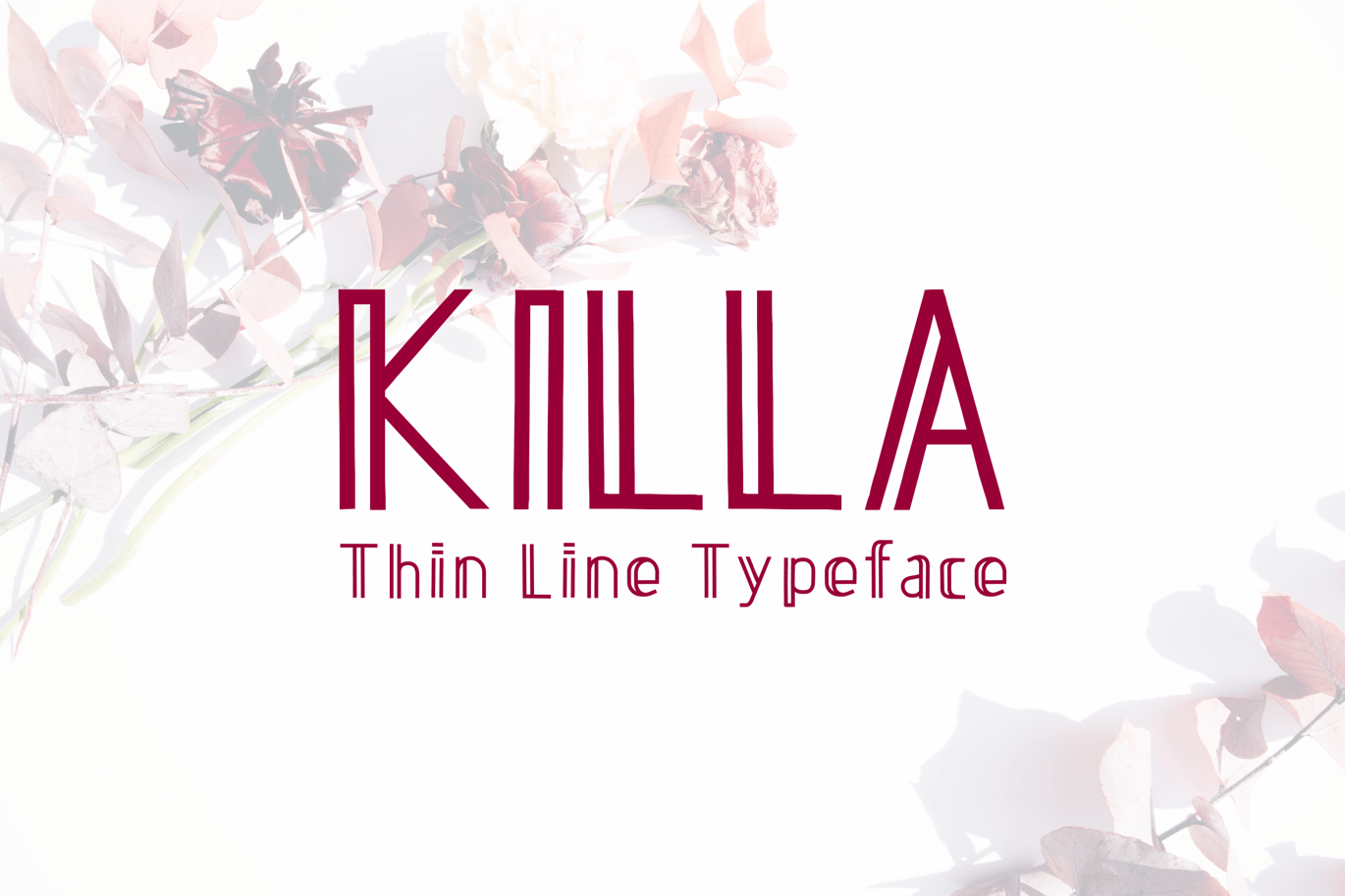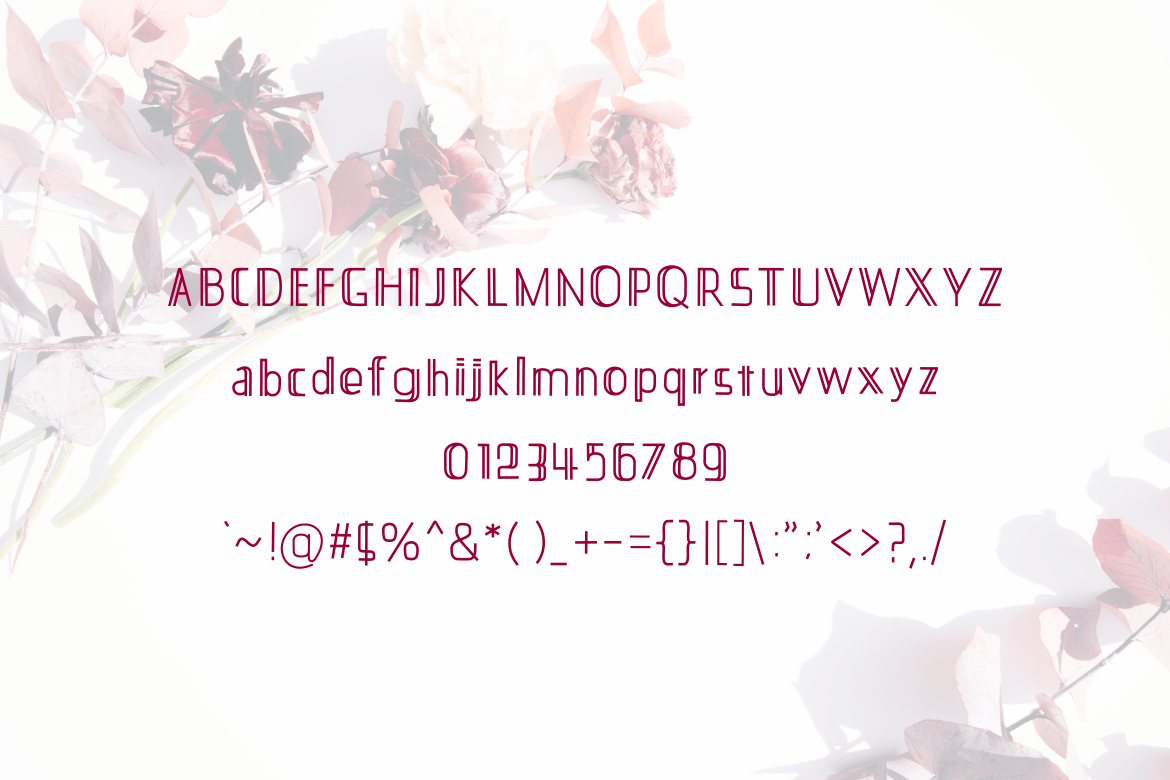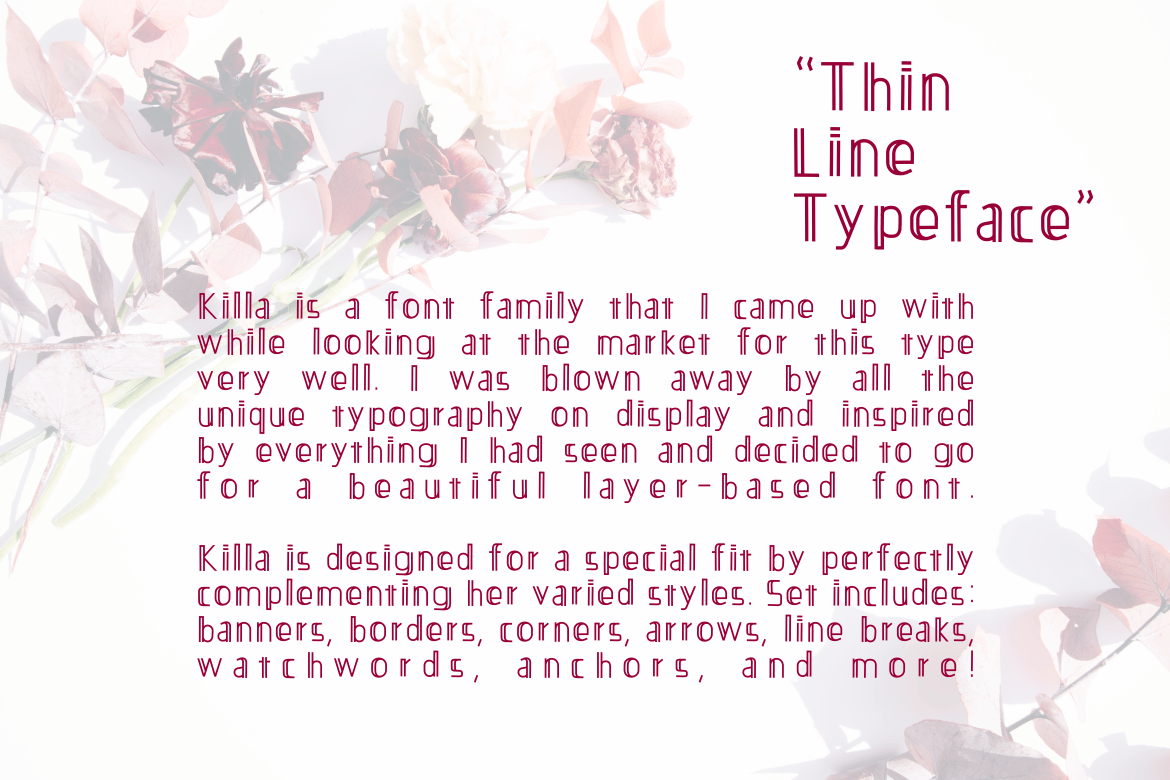
Killa Thin Line Font
Killa is a font family that I came up with while looking at the market for this type very well. I was blown away by all the unique typography on display and inspired by everything I had seen and decided to go for a beautiful layer-based font.
Killa is designed for a special fit by perfectly complementing her varied styles. Set includes: banners, borders, corners, arrows, line breaks, watchwords, anchors, and more!
- UPPERCASE & LOWERCASE